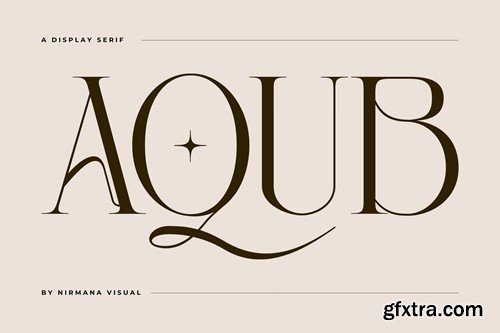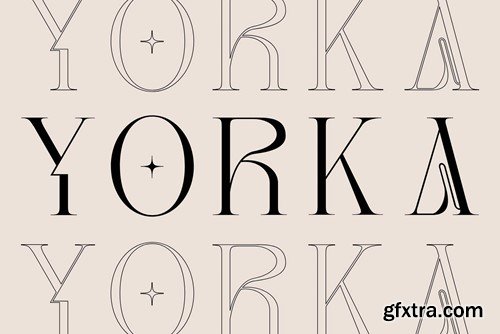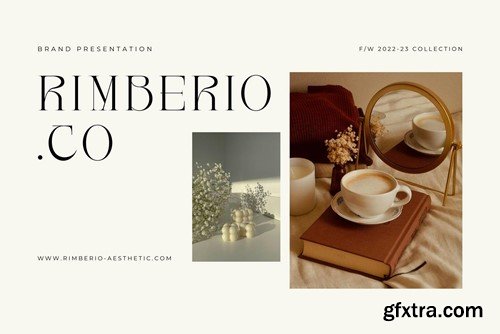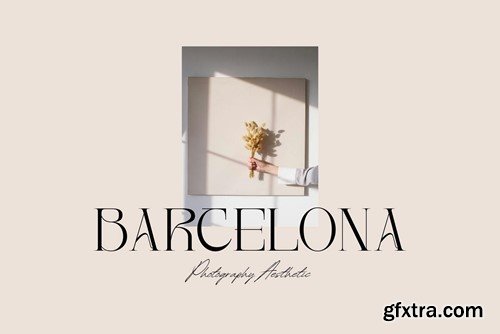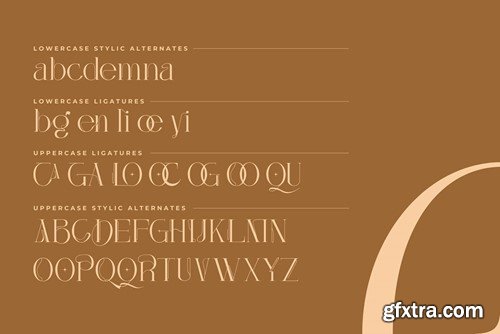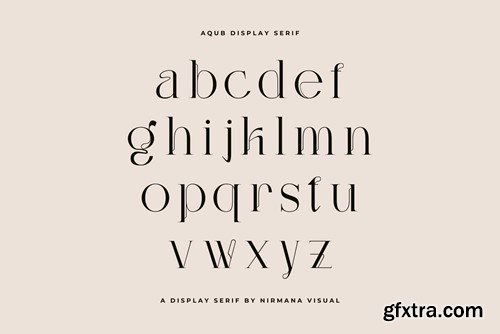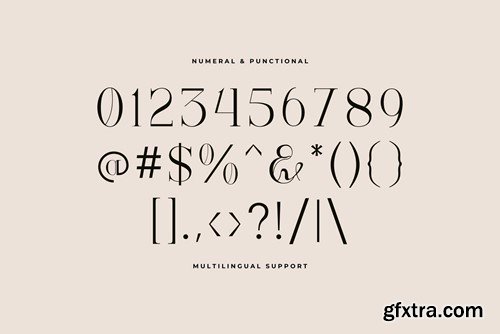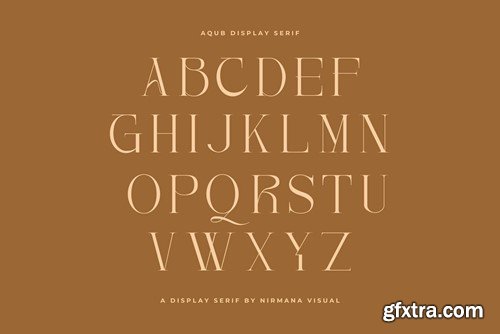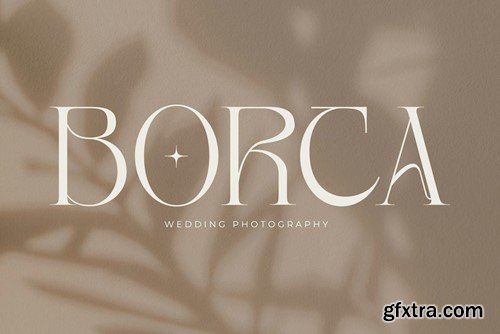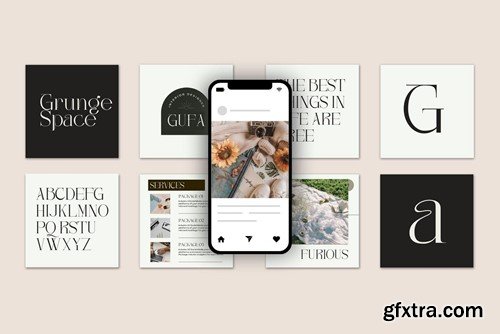
Aqub - Modern Branding Logo Font CX8UAFQ
Aqub - Modern Branding Logo Font
Aqub offers beautiful typographic harmony for a diversity of design projects, including logos & branding, social media posts, advertisements & product designs.